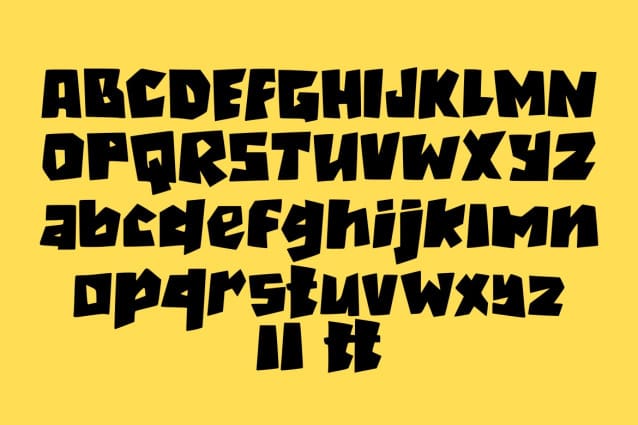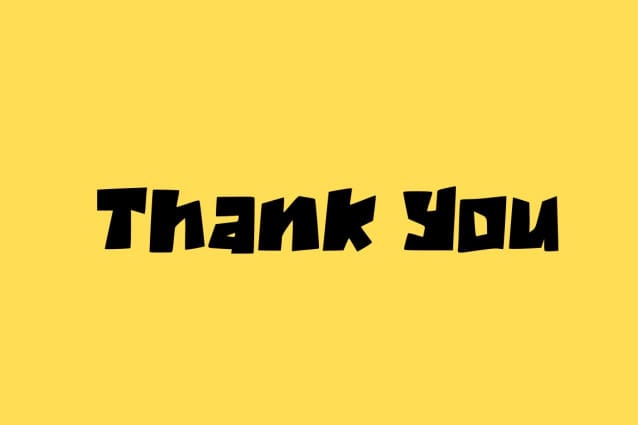
Nate Supe Font
Nate Supe Font is a chunky, comic, and cartoon display font. With its neat and joyful personality, this font will enhance any project you wish to create!